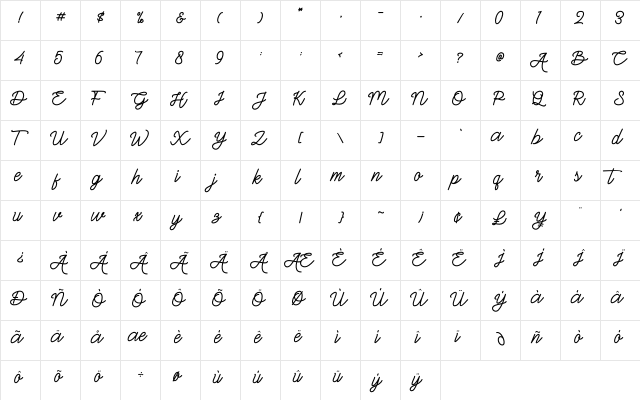
Gittelsy Regular
| Foundry | WDfont |
| Designer | Captain Jack |
Design Context for Gittelsy Typeface
Gittelsy takes a measured approach to typography — its balanced proportions and neutral character make it a reliable workhorse for both digital and print work.